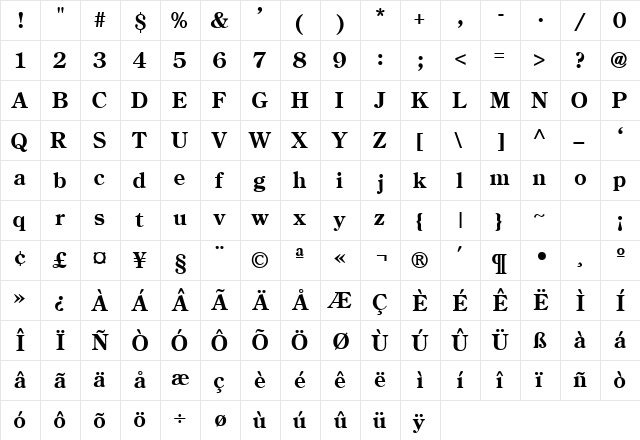
CenturyRetrospectiveSSK SemiBold
Design Context for CenturyRetrospectiveSSK Typeface
CenturyRetrospectiveSSK has the warm character of retro typography — evoking diners, record sleeves, and the golden age of print advertising. Its bold stroke weight gives it real presence on the page.
Font Pairing: Combine CenturyRetrospectiveSSK with a simple slab or neutral sans — period-accurate companions reinforce the vintage feel without competing for attention.
Pro Tip: Use CenturyRetrospectiveSSK for headlines and pull quotes rather than body copy — its personality is best appreciated in short, focused bursts.